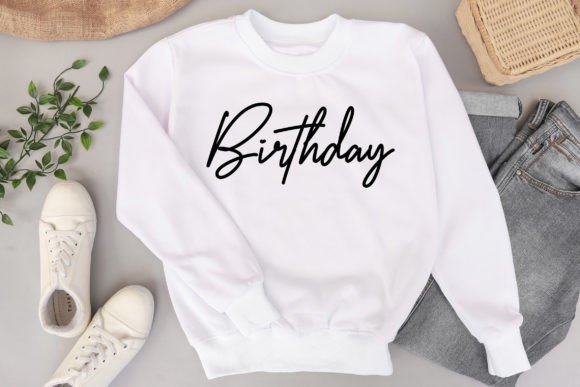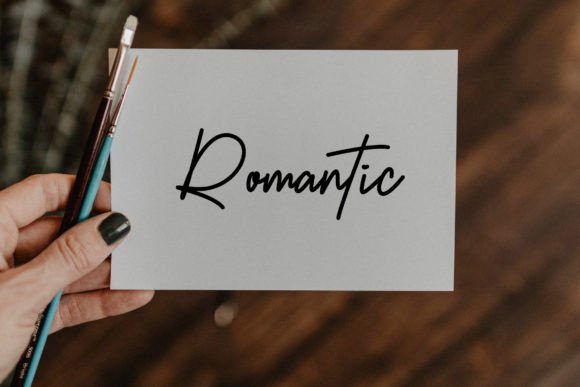
About Handraw Font
Handraw Font Download brings a modern, elegant handwritten script that blends style with sophistication. Crafted to meet the needs of designers looking for both flair and versatility, Handraw is perfect for branding, social media, wedding stationery, and so much more. Its smooth lines and expressive strokes give it a personal yet refined character that enhances any visual project.
Whether you’re creating for digital platforms or physical products, Handraw adapts beautifully across all mediums and maintains its graceful look from screen to print.
A Contemporary Script with Personality
Handraw features a handcrafted aesthetic that makes your designs feel more human and engaging. The script flows naturally, mimicking real handwriting while maintaining enough structure to keep it legible in various sizes and uses.
Ideal for:
Wedding invitations and event stationery
Logo design and elegant branding
Instagram posts and social media content
Product packaging and labels
Watermarks and photography branding
Quotes, prints, and wall art
This font fits seamlessly into modern, chic aesthetics—making it perfect for fashion, lifestyle, beauty, and boutique projects.
Handraw includes a complete character set with uppercase and lowercase letters, punctuation, numerals, and multilingual support. This ensures that your creative work isn’t limited by language or platform.
Versatile for Every Design Scenario
What makes Handraw truly stand out is its adaptability. It can work equally well as a stylish display font or as an elegant supporting script in a layered design. Its modern brush-lettered feel pairs beautifully with clean serif or sans-serif fonts, helping you build polished, balanced layouts.
You can use it to create sophisticated headers, branding for luxury products, or simply to add personality to everyday designs like thank-you cards, planner pages, and personalized notes.
If you’re in need of a handwritten script that brings style, charm, and modern elegance to your work, Handraw Font Download is an excellent addition to your collection. It provides the flexibility to design for both casual and upscale projects with the same professional finish.
Whether you’re an experienced designer or a creative hobbyist, Handraw helps you express your vision through typography that feels intentional, beautiful, and personal.